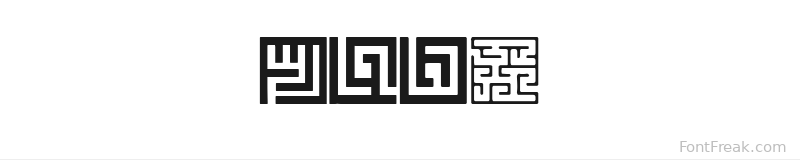
Maze
The Maze font by woodcutter Manero is a distinctive display typeface that embodies a playful yet structured aesthetic. With its unique design elements, this font captures attention and sparks curiosity, making it perfect for a wide range of creative projects. Characterized by its bold, geometric strokes and varying weights, the Maze font provides a strong visual presence that can transform any design. The spacing between letters is thoughtfully crafted, striking a balance between readability and artistic flair, while the intricate decorative elements evoke a sense of adventure, inviting viewers to explore its form.
Ideal use cases for the Maze font include modern wedding invitations that seek to blend elegance with a contemporary twist, eye-catching movie posters that require a unique typographic treatment, and trendy restaurant menus that want to stand out in a competitive market. Additionally, this font is well-suited for branding projects aimed at small businesses looking to convey creativity and innovation, as well as for content creators who want to add a unique touch to their online graphics.
What sets the Maze font apart is its ability to combine artistic expression with functional design. Its captivating style encourages exploration and creativity, making it a valuable addition to any designer’s toolkit. Whether used in print or digital formats, the Maze font is sure to leave a lasting impression.